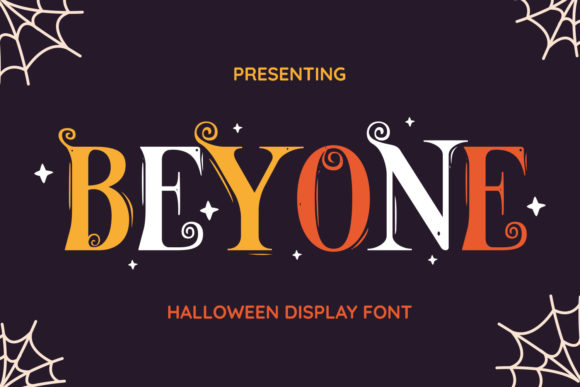
The Spooky Charm of Beyone Font: A Designer’s Delight
I still remember the design project that led me to discover Beyone Font. It was a Halloween-themed craft project for a client who wanted something spooky yet elegant. As I scrolled through font after font, I couldn’t find the perfect fit – until I stumbled upon Beyone. Its thick, bold letters and eerie vibe instantly captured the essence of the season. I knew right then and there that Beyone was the perfect choice for my project.
An Honest Review of Beyone Font
What I Love About Beyone Font
- ✨ Unique and eye-catching design: Beyone’s bold, thick letters make it stand out from other display fonts.
- ✅ Perfect for Halloween-themed projects: The font’s spooky vibe is ideal for creating eerie and captivating designs.
- 💡 Versatile and creative possibilities: Beyone’s design encourages experimentation and creativity, making it perfect for crafty ideas and DIY projects.
While Beyone Font is an excellent choice for many projects, there are a few things to keep in mind: 🤔
- ⚠️ Limited use in body text: Due to its bold design, Beyone may not be the best choice for lengthy body text. It’s better suited for headings, titles, or short phrases.
- ⚠️ May not be suitable for all audiences: The font’s spooky vibe might not be suitable for projects targeting a younger audience or those who prefer more traditional designs.
The Backstory of Beyone Font
Beyone Font was designed by a team of creatives who wanted to capture the essence of the spooky season. Inspired by old-fashioned Halloween signs and eerie landscapes, they crafted a font that’s both bold and haunting. The design process involved experimenting with different letterforms, textures, and effects to create a unique and captivating font.
Q: What is the best way to use Beyone Font?
A: Beyone Font is best used for headlines, titles, or short phrases where a bold and eye-catching font is needed. It’s perfect for Halloween-themed projects, crafty ideas, and DIY designs.
Q: Is Beyone Font suitable for body text?
A: No, Beyone Font is not suitable for lengthy body text due to its bold design. It’s better suited for headings, titles, or short phrases.